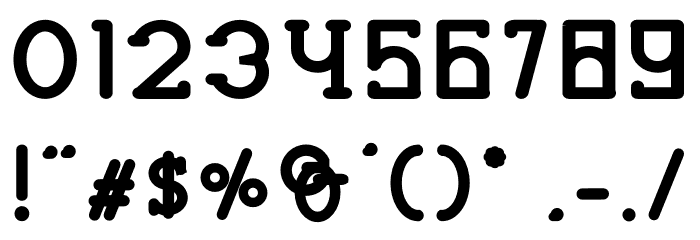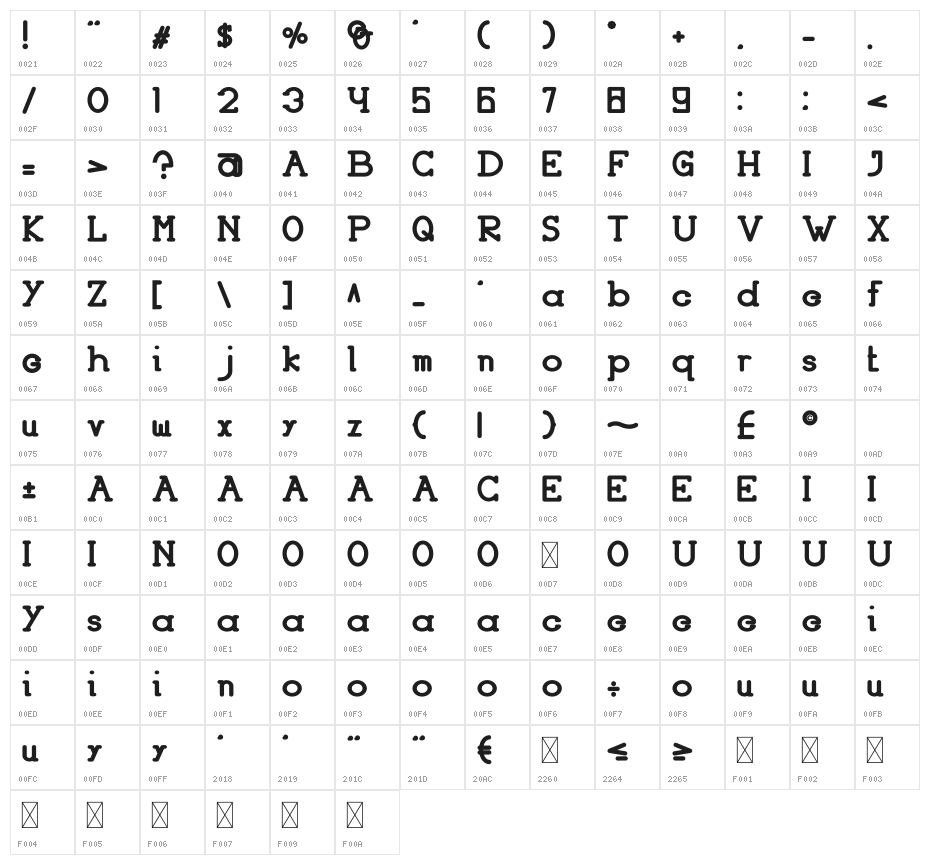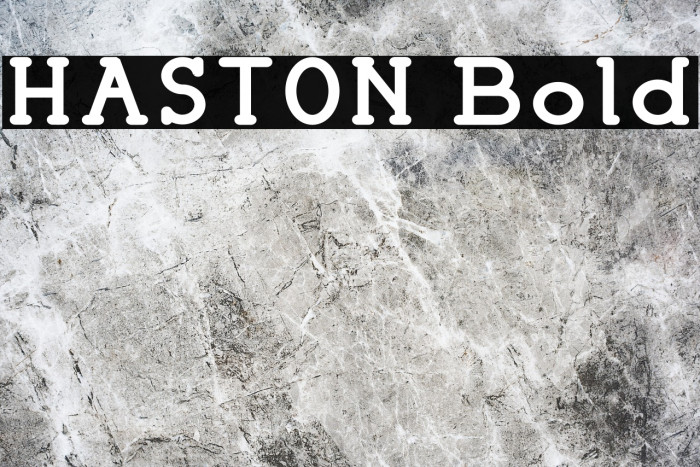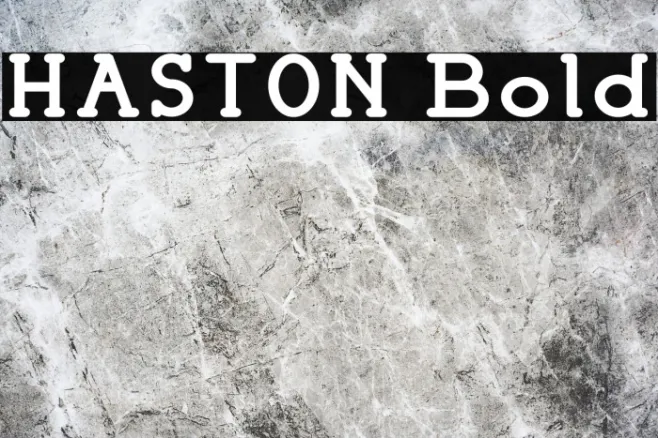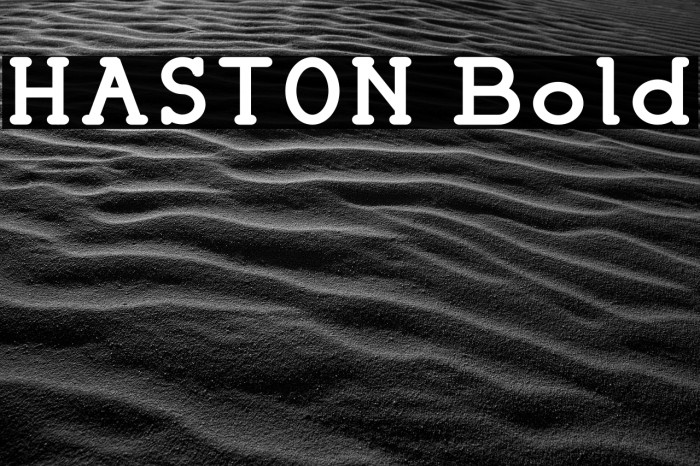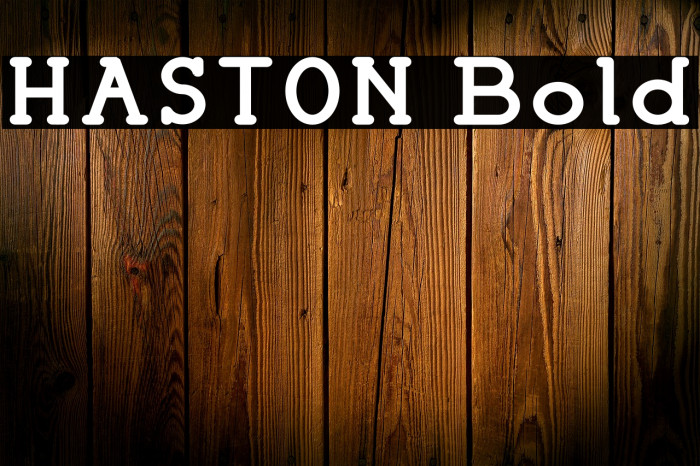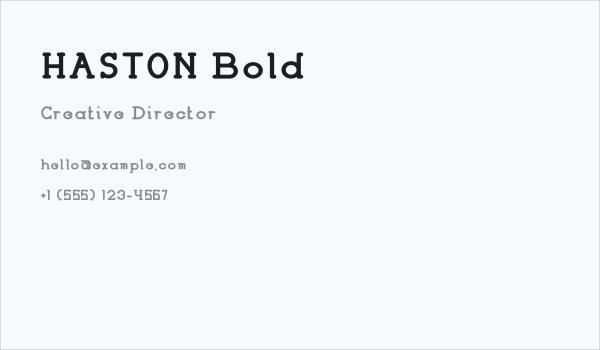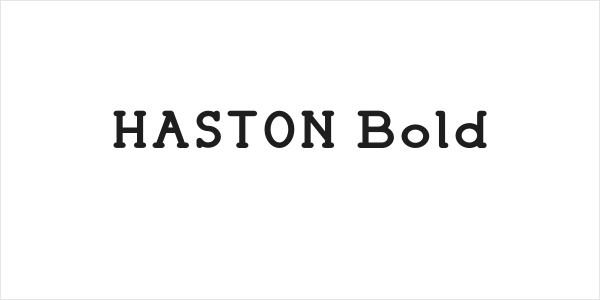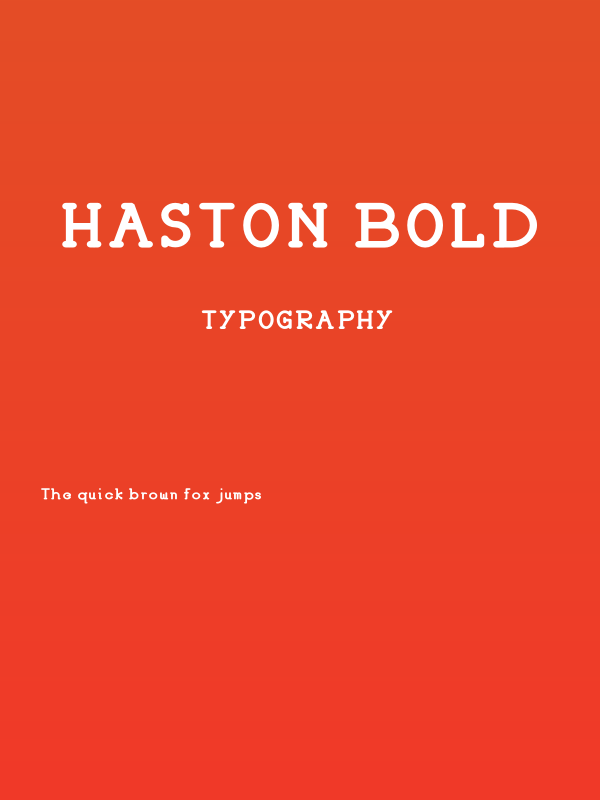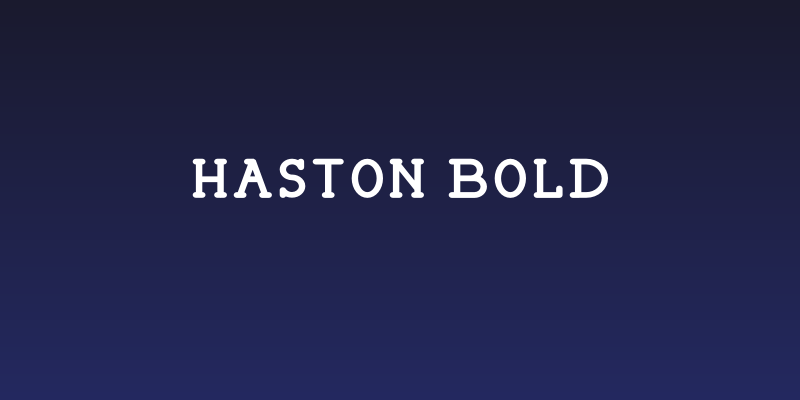
HASTON Bold Font
HASTON Bold Description
This font features a bold, rounded style with a playful and approachable appearance. The characters are uniformly thick, giving it a strong presence. The rounded edges soften the overall look, making it suitable for friendly and informal designs. The uppercase and lowercase letters maintain a consistent weight, while the numerals and special characters follow the same design principles, ensuring a cohesive appearance across all text. The font's unique style is both modern and slightly retro, making it versatile for various creative projects.
| Proposed Projects | Ideal for children's books, playful branding, posters, and social media graphics. |